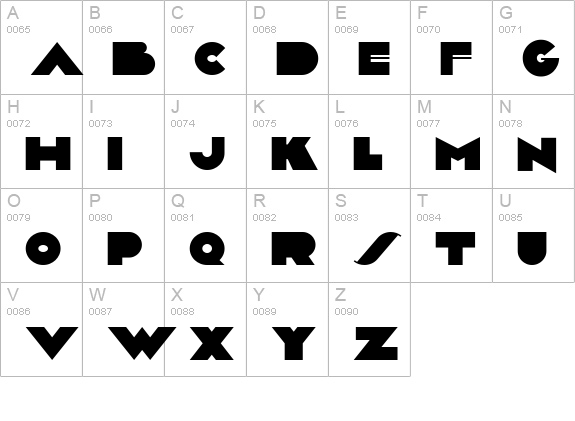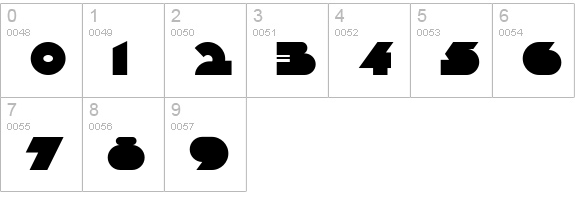
SodaJerkNF Font Details
Introducing SodaJerkNF, a refreshingly unique font that will quench your thirst for creativity. This one-of-a-kind typeface combines bold and playful elements, making it the perfect choice for projects that demand a touch of originality. SodaJerkNF stands out from the crowd with its bubbly and effervescent letterforms. Each character is meticulously crafted to resemble the fizz and pop of a freshly opened soda can. The rounded edges and smooth curves give this font a friendly and approachable feel, making it a versatile choice for a wide range of design projects. But what sets SodaJerkNF apart is not just its delightful aesthetics, it is also the fact that it is freely available to download at FontsMarket.com. Yes, that's right, this incredible font can be yours with just a few clicks. Whether you need it for personal or commercial use, SodaJerkNF is here to quench your design needs without emptying your wallet. So go ahead and indulge in the sweet taste of creativity with SodaJerkNF. Let your designs fizz and sparkle with this delightful font. Whether you're designing posters, logos, packaging, or any other creative project, SodaJerkNF will add a refreshing twist to your work. Download SodaJerkNF now from FontsMarket.com and unleash the full potential of this free font. With its playful charm and free spirit, SodaJerkNF is the perfect companion for your design journey. Don't miss out on this opportunity to elevate your designs with a font that is as refreshing as a sip of your favorite soda.